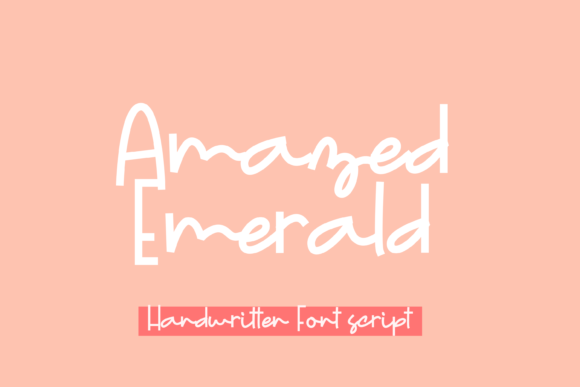
Introducing Amazed Emerald, the captivating script font that will leave you spellbound. This exquisite creation by Ongtype co. is no ordinary font; it's a work of art that will elevate your designs to new heights of beauty and elegance.
Experience the allure of Amazed Emerald, a font that flows like liquid poetry. Its graceful curves and delicate strokes evoke a sense of timelessness, making it the perfect choice for projects that demand a touch of sophistication. From wedding invitations to branding materials, Amazed Emerald adds a touch of understated luxury that is sure to impress.
One of the things that sets Amazed Emerald apart is its versatility. Whether you're working on a logo, a poster, or a website, this font has the adaptability to suit your every need. Its wide range of alternates and ligatures allows you to create stunning combinations that add depth and character to your designs.
But Amazed Emerald is more than just a versatile workhorse. It's a font that can evoke emotions and tell stories. Its elegant swashes and flourishes add a touch of whimsy and playfulness, making it ideal for projects that require a dash of personality.
And let's not forget about its readability. Amazed Emerald is carefully crafted to ensure that your words are easy to read, even at small sizes. Its clear and distinct letterforms make it perfect for body text, headlines, and everything in between.
So, whether you're a seasoned designer or just starting out, Amazed Emerald is the font you need to take your projects to the next level. Its timeless beauty, versatility, and readability make it the perfect choice for any creative endeavor.
Don't settle for ordinary fonts. Choose Amazed Emerald and experience the difference. Let this exquisite script font ignite your creativity and create designs that captivate and inspire.